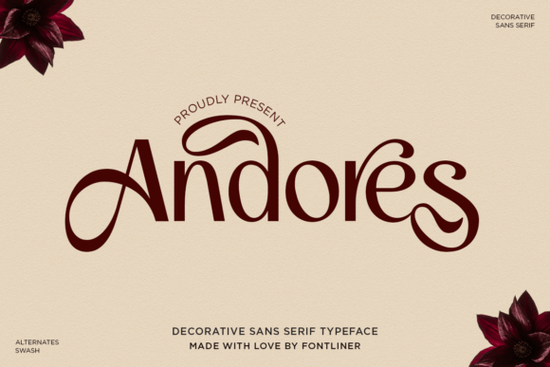
If you are looking for a typeface that brings a soft, romantic feel to your creative projects, the Andores Font is a fantastic choice. It is a decorative sans serif that uses graceful curves and stylish swashes to create a warm, inviting look. Whether you are designing a boutique logo, crafting wedding invitations, or creating packaging for a new skincare line, this style gives your work a premium, elegant touch without feeling overly complicated or dated.
What makes this typeface stand out for feminine branding?
When building a brand identity for beauty products, fashion labels, or lifestyle visuals, the right letterforms do a lot of the heavy lifting. This specific design balances modern simplicity with ornamental details. The flowing shapes make every word feel personal, charming, and visually captivating. It transforms ordinary text into graceful storytelling. If you need a slightly different vibe but want to keep that clean, modern foundation for your secondary text, you might also explore a clean option like Clouds or something minimal like Thorade to round out your font library.
Which projects work best with this specific style?
Because of its delicate balance and visual warmth, this font shines in several specific areas where emotion and aesthetics matter. Here is where it performs best for crafters and small business owners:
- Wedding invitations and stationery: The romantic curves set a beautiful, memorable tone for special events and save-the-dates.
- Cosmetic and skincare packaging: It adds a luxurious, high-end feel to product labels and boxes.
- Social media graphics: Eye-catching headlines for Instagram or Pinterest stand out beautifully in a crowded feed.
- Boutique logos: It gives small businesses a polished, professional, and approachable identity.
How should you pair it with other fonts for readability?
Since the main letterforms have a lot of personality and decorative details, it is best to pair them with something very simple and grounded. A basic, highly legible sans serif or a clean, traditional serif will let the decorative elements shine without making the overall design look cluttered. Keep your body text small and straightforward, and reserve the swashes for large headlines, short quotes, or brand names. If you are working on a project that needs a slightly more playful or rounded aesthetic for your subheadings, you could pair it with a rounded choice like Quasar Soft. For a more upbeat, casual feel in your social media templates, a cheerful alternative like Happy Morning works wonderfully as a secondary accent. You can find the full set of files, see more examples, and check the license details on the official listing before you download.
Quick tips for using decorative sans serifs in your layouts
- Limit swash usage: Only use the extra flourishes on the first or last letter of a short word to keep the text readable and clean.
- Increase letter spacing: Decorative curves can sometimes feel crowded; adding a little tracking helps the letters breathe and look more expensive.
- Check contrast: Make sure your text color stands out clearly against your background, especially when printing on delicate packaging materials.
- Test at small sizes: Always preview your design at actual print or screen size to ensure the fine details do not blur or disappear.